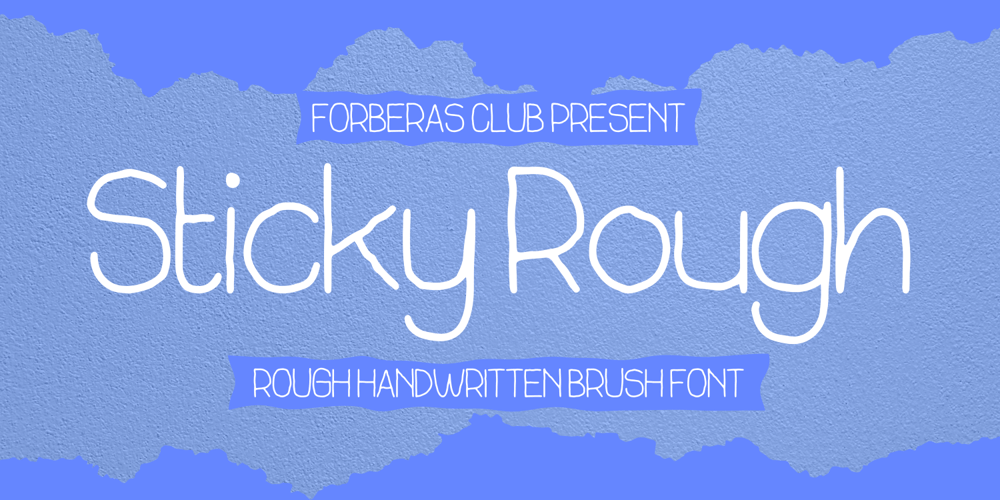
Sticky Rough Font Family was designed by ANGGI HERMAWAN and published by Forberas Club. Sticky Rough contains 1 styles and family package options. This cute font with thin style. You must have this font for sure. Do your cute moment. 🙂